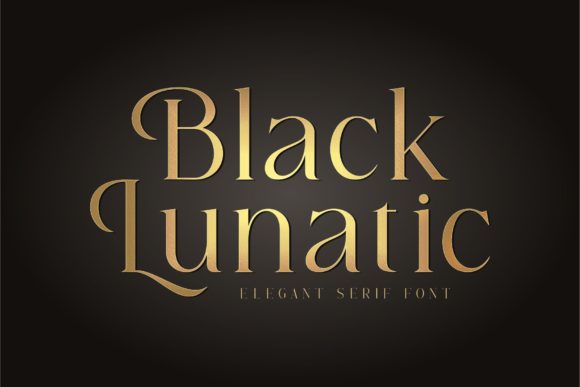
The Designer’s Dream Come True: Black Lunatic Font
- ✨ Elegant serif design: The Black Lunatic font boasts an incredibly elegant serif design that adds a touch of sophistication to any project.
- ✅ Versatility: This font is incredibly versatile and can fit a wide pool of designs, from luxury branding to wedding invitations.
The Designer Inspiration Behind Black Lunatic Font
The Black Lunatic font was inspired by the works of legendary typographers who sought to create elegant and sophisticated fonts that would elevate designs to the highest levels. The font’s creator drew inspiration from classic serif fonts and infused them with modern features and OpenType capabilities.
| Font Name | Black Lunatic Font |
| Author | Hanzel Studio |
| What is the Black Lunatic font? | The Black Lunatic font is an elegant serif font that’s perfect for luxury branding, wedding invitations, and other high-end designs. |